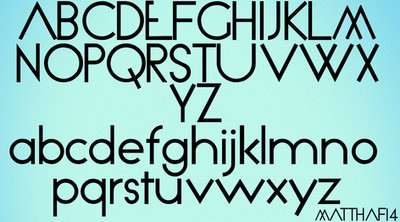
hi! this is the font used on the 'positions' artwork, requested by a watcher =]please notice that the album version is heavily modified and distorted!